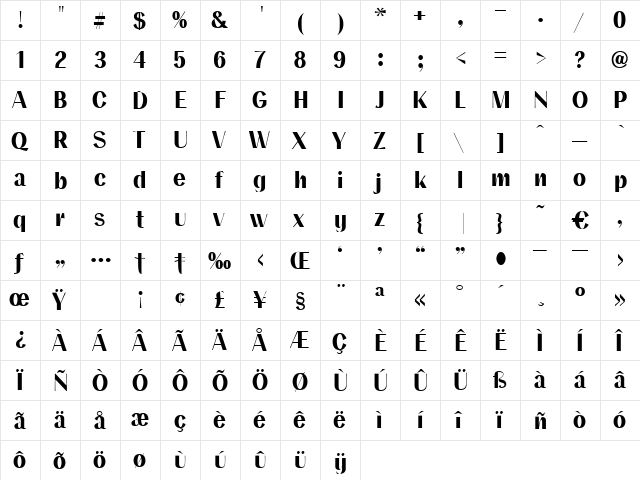
Sachalin Regular
Design Context for Sachalin Typeface
Sachalin is a composed and adaptable typeface that performs quietly and consistently across a wide range of design contexts.